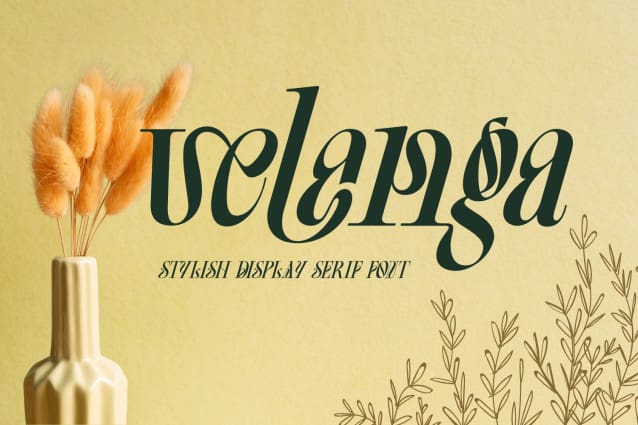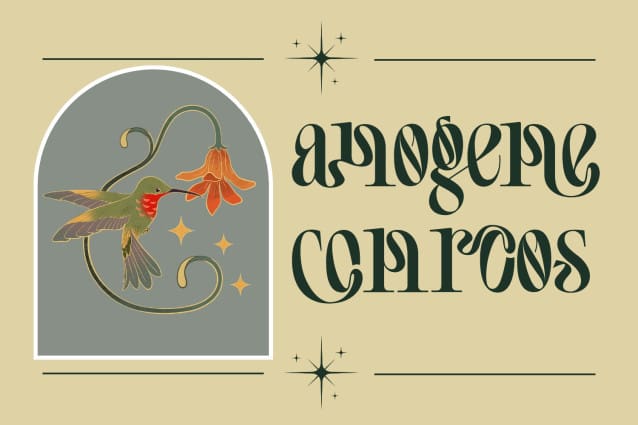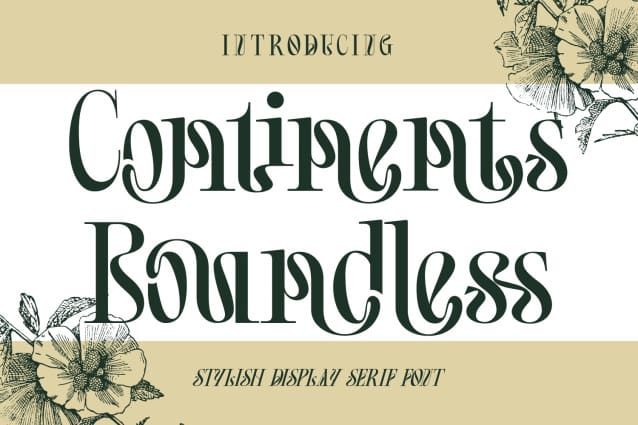
Continents Boundless Font
Continents Boundless Font is elegant and has a unique shape, soft feel that brings the feel of the ancient Roman era, giving it a character and edge that is different from the others, even though the shape is unique. And unique ligatures, this font suitable for short text and long words such as headlines, logos, UI design, magazine text, product descriptions, and other design needs.
Continents Boundless was built with OpenType features and includes 100 ligatures, alternate, numbers, punctuation, and it also supports other languages.